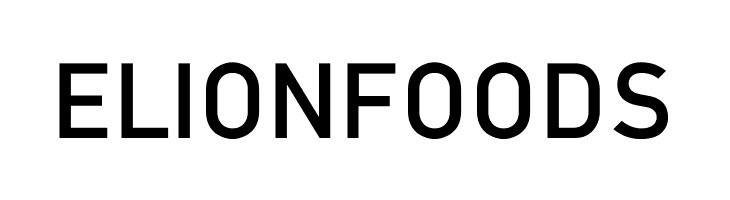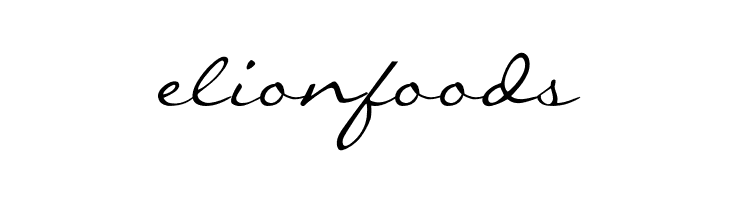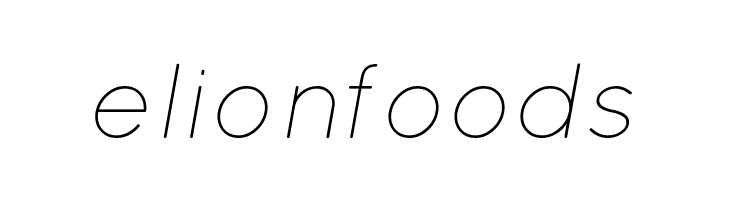
A classic serif font with balanced proportions and moderate contrast.
A refined serif font with elegant lines and balanced proportions.
A light, elegant serif font with classic curves and modern appeal.
A monospaced typewriter-style font with rounded characters and consistent stroke widths.
A bold, modern sans-serif font with clean, rounded edges and excellent readability.
A modern, monospaced font with a clean, geometric design.
A modern, condensed sans-serif font with a sleek and professional appearance.
A modern, monospaced font with low contrast and uniform spacing.
A clean, slab serif font with expanded width and consistent stroke, offering readability and modern appeal.
A modern, geometric, and condensed font with low contrast and rounded edges.
A graceful script font with fluid, cursive strokes and a modern calligraphic style.
A sleek, modern, and elegant light italic font with clean lines and balanced spacing.
A modern serif font with a balanced and versatile design.
A refined serif font with high contrast and elegant proportions.
A modern, geometric sans-serif font with a clean and balanced design.
A bold, modern monospaced font with consistent stroke thickness and geometric design.
A geometric, modern font with clean lines and uniform stroke width.
A bold, modern font with rounded, geometric characters.
A dotted cursive font designed for handwriting practice.
A dotted cursive font with directional arrows, perfect for handwriting practice.
A sleek, modern italic font with smooth curves and a professional appearance.
A casual, handwritten font with a thin, consistent stroke and slightly slanted characters.
A modern, monospaced font with medium contrast, ideal for coding and technical use.
A playful and modern sans-serif font with rounded edges and a slightly condensed style.